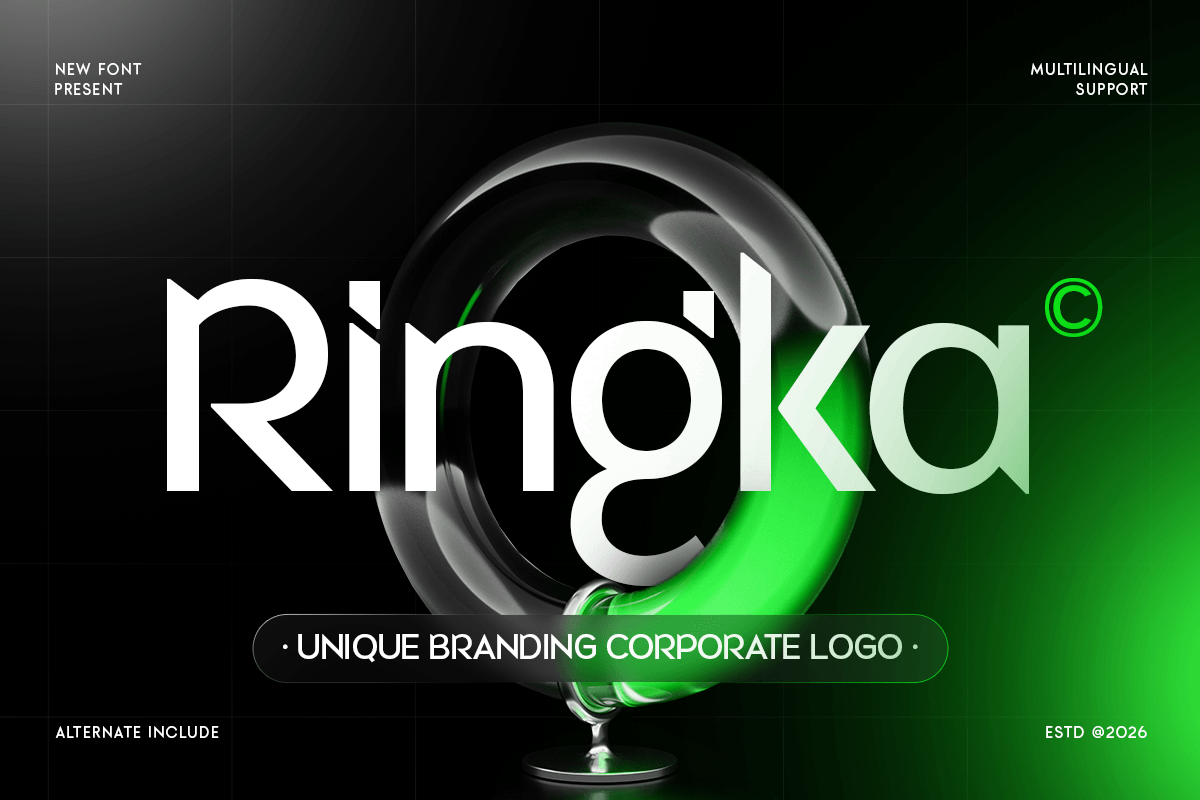
Ringka
-Corporate Modern Logo Font
Ringka - Corporate Modern Logo Font
Ringka is a corporate modern logo font designed to deliver clarity, confidence, and professional visual consistency. With clean letterforms, balanced spacing, and a refined modern structure, this typeface creates a polished brand tone that feels reliable, contemporary, and instantly business-ready.
Built for corporate identity and logo-focused typography, Ringka works beautifully across logos, wordmarks, company profiles, presentations, reports, website headers, UI design, dashboards, signage, brochures, and social media branding. Its modern structure keeps every composition sharp and readable while supporting a clean professional presence across both digital and print layouts.
Whether you’re building a startup identity, refreshing a corporate brand system, designing professional marketing assets, or creating clean digital interfaces, Ringka provides a strong typographic foundation that makes your communication feel modern, organized, and credible.
Inspiration Behind Ringka
Ringka is inspired by modern corporate identity systems and clean logo typography—where clarity, balance, and consistency build trust. The design focuses on professional spacing, sleek structure, and functional readability to support business branding, digital communication, and contemporary visual systems.
Ringka Font Features:
• Corporate modern letterforms optimized for logo and wordmark design
• Clean professional structure for consistent brand identity
• High readability for headlines, UI, presentations, and business layouts
• Corporate logos, wordmarks, and business identity systems
• Startup branding, company profiles, reports, and presentations
• Websites, dashboards, UI/UX, and digital product typography
• Brochures, signage, packaging, and professional marketing layouts
• Social media branding, ads, and modern communication assets